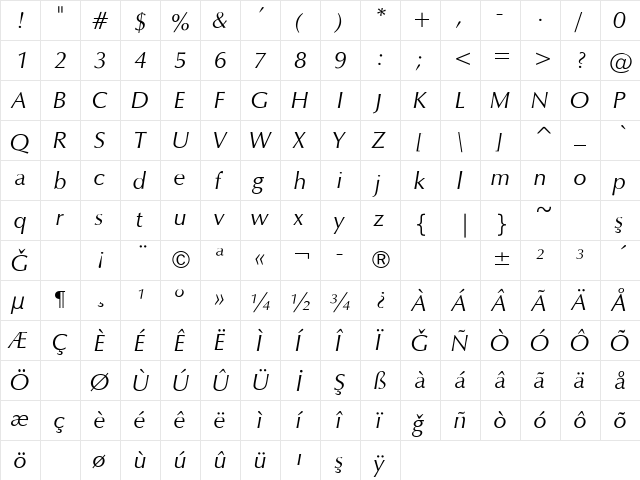
Zapf_ Humanist Normal-Italic
Design Context for Zapf_ Humanist Typeface
Zapf_ Humanist offers clean, dependable letterforms without strong stylistic allegiance, making it a practical choice for designers who need flexibility. The dynamic lean of this cut emphasises speed and emphasis in any layout.
Pro Tip: Try Zapf_ Humanist for annotation and caption copy alongside an upright companion — the contrast in angle creates a dynamic but ordered typographic system.